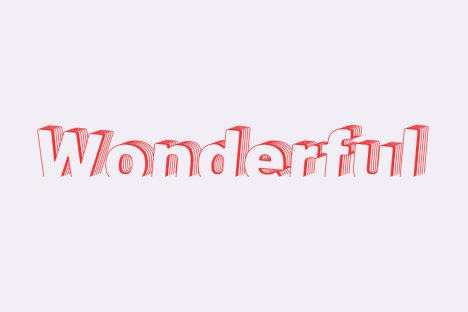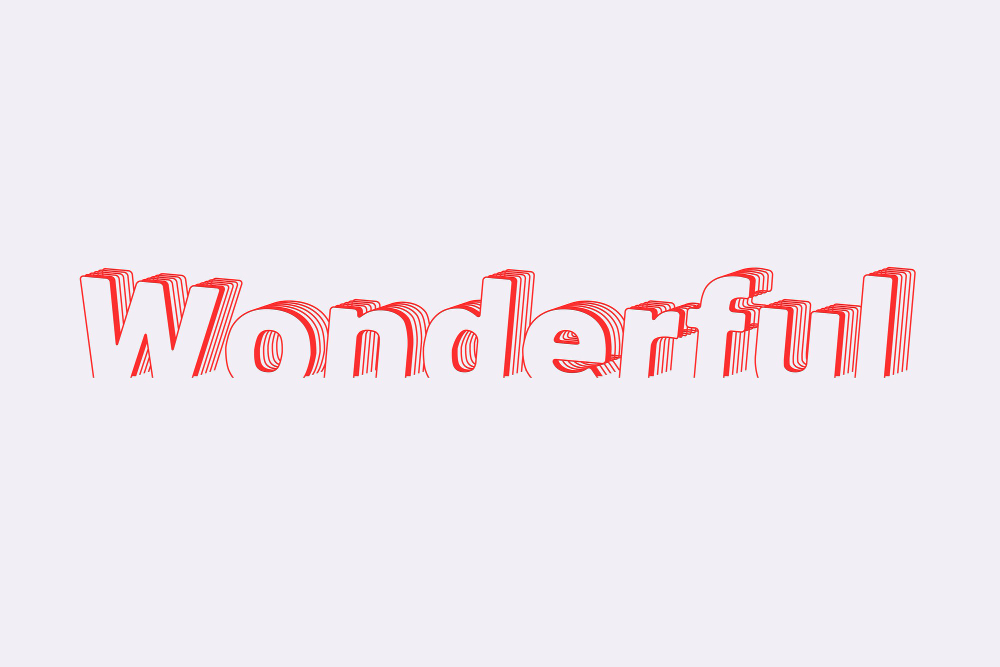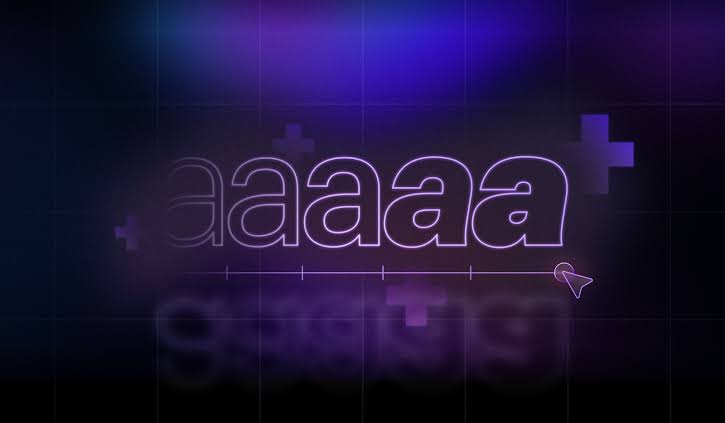
What Does the Future of Typography Look Like? Here Are the Predictions
The future of typography is predicted to go far beyond stylish fonts since it’s about creating meaning through the way type connects with data, visuals, and emotions. As we move forward, designers are exploring how font attributes, like weight and spacing, can enrich storytelling within data visualizations.
Consequently, this leads to innovative techniques where typography plays a vital role in making complex information more accessible and engaging. By blending design with function, type becomes a powerful communication tool. Intrigued by this exciting shift in design? Keep reading to dive deeper!
Key Takeaways
- Variable fonts and responsive types are redefining flexibility and performance in digital design.
- Typography now plays a crucial role in data visualization to enhance both clarity and storytelling.
- AI and personalization are pushing font design to be more adaptive, emotional, and brand-specific.
6 Future of Typography Innovations to Watch in the Digital Era
If you want to know what is the future of typography specifically in 2025, we’ve rounded up 6 typography breakthroughs that are expected to reshape the way we design, experience, and relate to written content. Follow through!
1. Variable Fonts Take Center Stage
To begin with, variable fonts are revolutionizing the way we work with type. A single file can now hold multiple styles, like bold, thin, and everything in between. This reduces load times and improves performance across devices. It’s an efficient upgrade for digital design.
Moreover, variable fonts offer creative flexibility that was once impossible. Designers can smoothly adjust type weight and width depending on context or interaction. As a result, this dynamic control makes digital typography feel more alive and responsive.
2. Kinetic Typography and Motion Integration
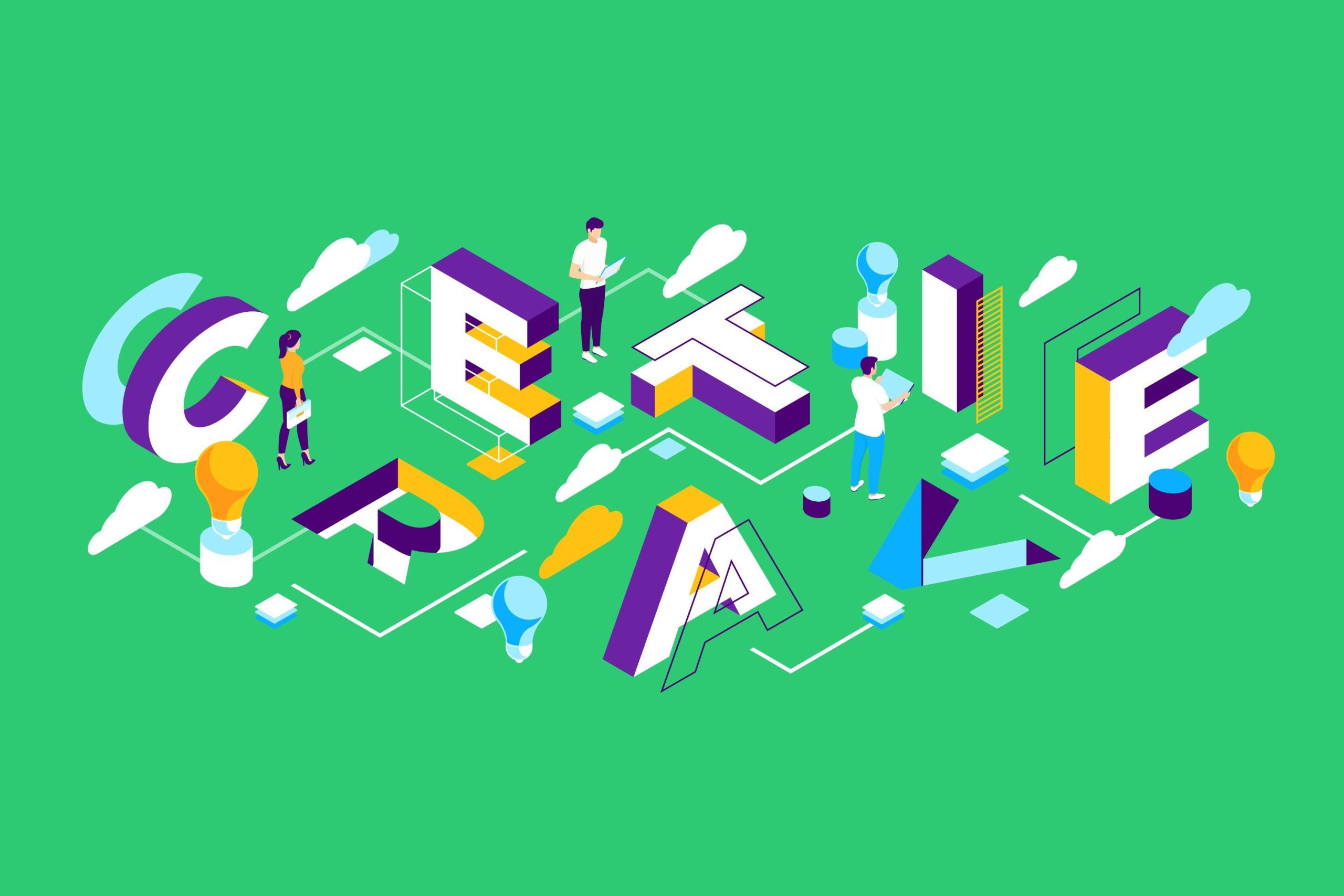
As digital content grows more interactive, kinetic typography is becoming a key player in the future of typography. Subtle animations like fades, slides, or bounces capture attention and enhance storytelling. It gives text an emotional presence in the digital space, making content more immersive and dynamic.
Equally important, movement can guide the reader’s focus or highlight key information. Used smartly, kinetic type boosts engagement without overwhelming the viewer. Expect this to be a powerful tool in future web and UI design.
3. Responsive Typography for All Screens
Next, as screens vary in size and resolution, responsive typography ensures your text remains readable everywhere. Whether on a smartwatch or widescreen monitor, type adapts to provide comfort and clarity. This creates a more seamless user experience.
In addition, designers are using fluid scaling techniques and media queries to fine-tune fonts per device. This results in consistency without compromising design. Moving forward, responsive typography will be a basic requirement, not an option.
4. Typography in Data Visualization
Interestingly, typography is also finding its place in data-driven design. By applying weight, spacing, or size to represent values, text becomes part of the visual language. This makes data feel more intuitive and engaging.
Additionally, this technique goes beyond aesthetics. It helps people grasp complex insights faster. Designers can now create charts or dashboards where type communicates just as much as numbers or shapes. It’s an emerging trend with huge potential.
5. Personalization and AI-Generated Fonts
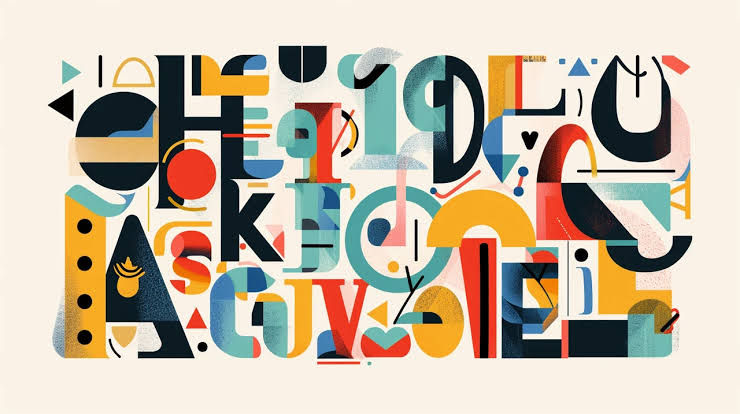
In a world focused on personalized experiences, fonts are catching up. Some brands are now using AI to generate custom typefaces that reflect their tone and character. These fonts can adapt based on mood, language, or user data.
Furthermore, this level of customization opens new doors in branding. As AI tools mature, the future of typography will likely include fonts that evolve in real time by reacting to who’s reading and how they’re interacting to make it more engaging.
6. Retro and Maximalist Typography Comeback
Finally, bold and nostalgic typography is making a vibrant return. Inspired by past decades, designers are embracing chunky serifs, bright palettes, and expressive layouts. It’s a refreshing contrast to years of minimalism.
Not only does this style bring fun back into design, but it also grabs attention in a crowded digital space. With personality leading the way, maximalist typography is perfect for brands that want to stand out.